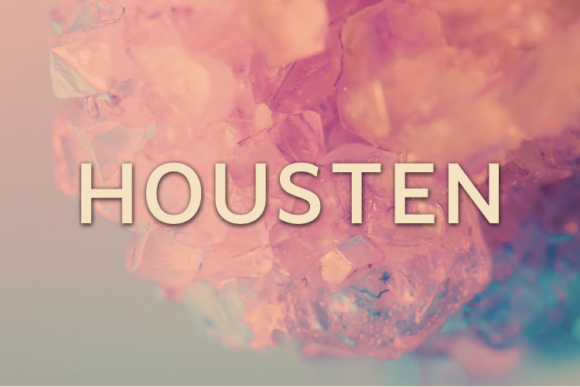
Housten Font
Download Housten Font for free! Created by A Christie and published by Nathan Houston, this sans serif font family is perfect for adding a unique touch to your designs.
Introducing Housten Font, an exquisite creation by A Christie, a font that radiates beauty and sophistication. This meticulously crafted sans serif font exudes elegance and minimalism, making it the perfect choice for designers and creatives seeking a touch of understated luxury in their projects.
Housten Font's clean lines and refined curves evoke a sense of grace and timelessness. Its versatile nature allows it to blend seamlessly with a wide range of design concepts, from sleek and modern to classic and timeless. Whether you're working on a branding project, a website design, or an invitation suite, Housten Font will elevate your designs to new heights.
Unleash your creativity and let Housten Font be the star of your next project. Its delicate strokes and balanced proportions create a stunning visual impact that's sure to leave a lasting impression. Whether you're designing a logo, a poster, or a social media campaign, Housten Font will add a touch of refined beauty that captivates and inspires.
Don't settle for ordinary fonts that blend into the background. Choose Housten Font and let your designs shine with a unique and captivating charm. Experience the difference that a truly beautiful font can make and elevate your work to the next level of sophistication.
Say goodbye to boring and predictable fonts and embrace the transformative power of Housten Font. Its timeless elegance and versatility will make it your go-to choice for any project that demands a touch of understated luxury. Let Housten Font be your creative companion and watch as your designs come to life with an air of sophistication and grace.